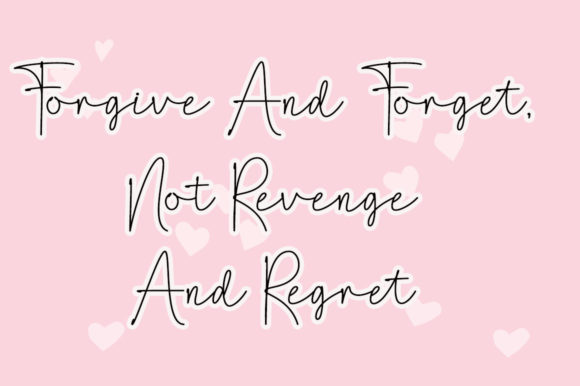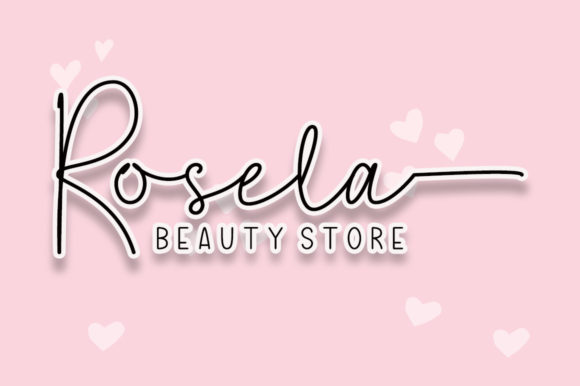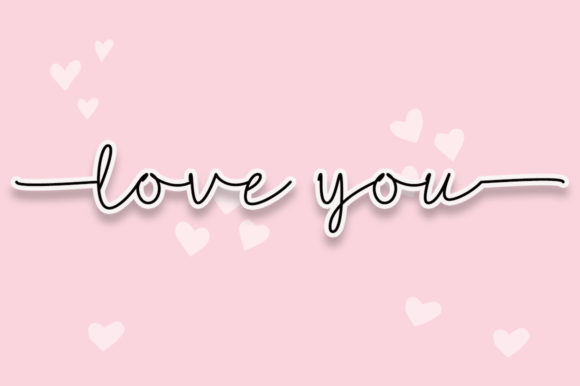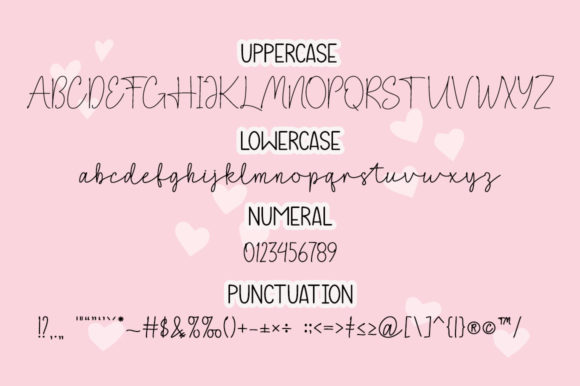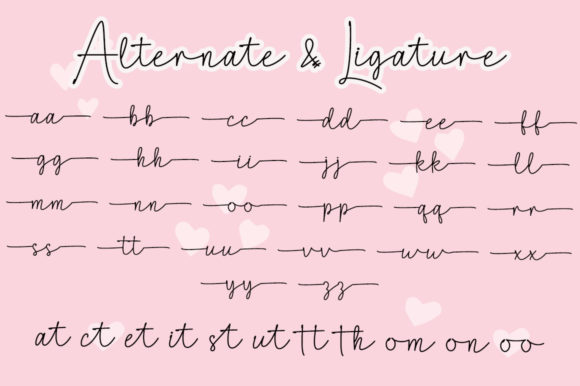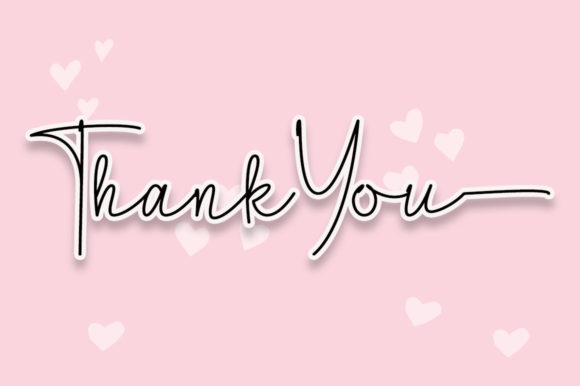
Introduction to Love Signature Font
Have you ever been working on a creative project and suddenly, the perfect font pops up, elevating your entire design? That’s exactly what happened to many designers when they stumbled upon the Love Signature Font. This beautiful, high-quality script font has been a game-changer for many projects, adding a touch of elegance and sophistication to any design.
Whether you’re working on a romantic wedding invitation, a heartfelt birthday card, or a elegant brand logo, the Love Signature Font is sure to be a hit. With its clean, thin and smooth vibe, it’s the perfect design resource for any creative project. And the best part? It’s free to download, making it a valuable addition to any designer’s toolkit.
Key Features of Love Signature Font
- High-quality, cursive font with a romantic and elegant feel, perfect for creative projects.
- Features a large character set, including uppercase and lowercase letters, numbers, and special characters.
- Unique characteristics include swashes, flourishes, and ligatures, adding an extra touch of elegance and sophistication to designs.
Honest Review: Love Signature Font
I recently came across the Love Signature Font, and I must say it’s a beautiful addition to any creative project. The high quality of this font is undeniable, with intricate details that add a touch of elegance to any text.
Here are some things that work well about the Love Signature Font:
- ✨ Unique and intricate design that adds a touch of sophistication to any text
- ✨ High quality and detailed strokes that make the font stand out
While the Love Signature Font is a great addition to any design project, I do have a few limitations to mention:
- ⚠️ Limited font sizes and styles available, which may limit its versatility
- ⚠️ May not be suitable for large-scale text, as the intricate details can get lost at larger sizes
Overall, I’m quite impressed with the Love Signature Font. It’s a great resource for designers looking to add a touch of elegance to their projects. While it may have a few limitations, it’s definitely worth considering for your next creative project.
The Love Signature Font is commonly used for wedding invitations, birthday cards, and other creative projects. It’s also great for personalizing gifts or creating unique business cards.